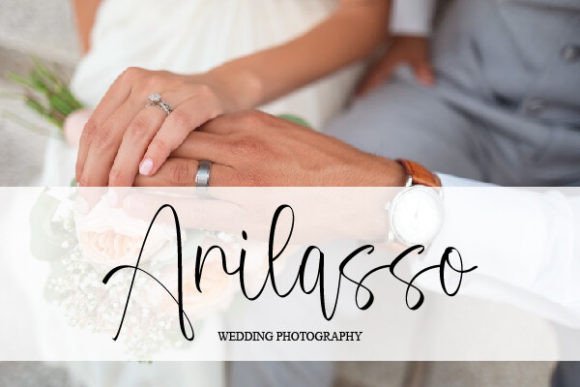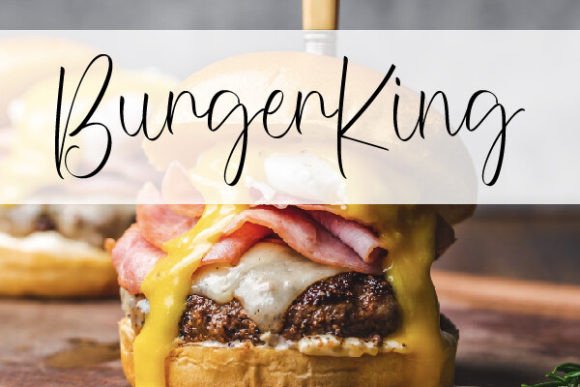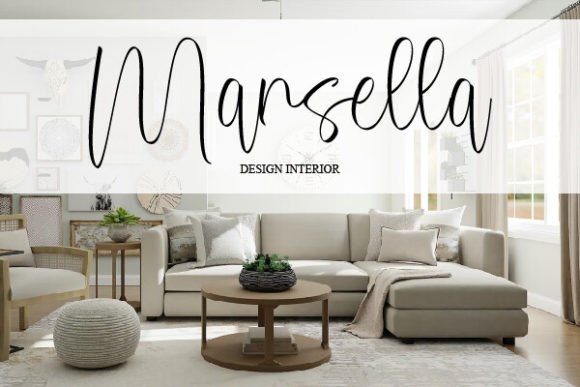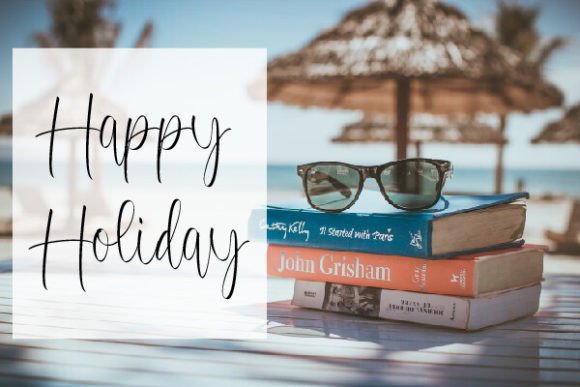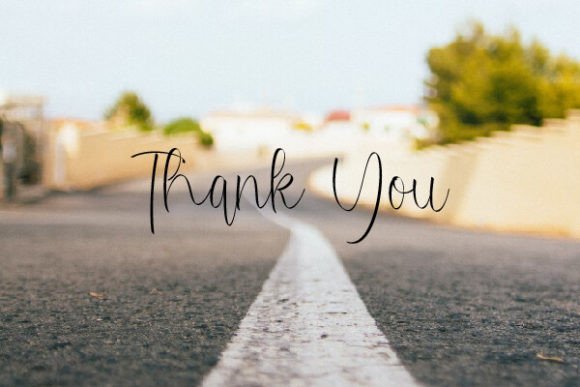
Introducing Alessandra Font: Elevate Your Designs with Timeless Elegance
Are you looking for a font that exudes sophistication and classic charm? Look no further than Alessandra, a stunning calligraphy font that adds a touch of elegance to any text. With its flowing strokes and stylish curves, Alessandra brings a refined beauty to your words, making them stand out in a world of design.
The Characteristics of Alessandra Font
Alessandra is a graceful calligraphy font that boasts a range of characteristics that make it perfect for designers and crafters. Its flowing strokes and stylish curves give it a sophisticated and timeless feel, making it ideal for projects that require a touch of elegance. Whether you’re working on invitations, cards, or other designs, Alessandra is the perfect choice.
Perfect for Invitations, Cards, and More
Alessandra is a versatile font that can be used for a wide range of projects. Its classic charm and refined beauty make it perfect for:
• Birthday cards and party invitations
• Business cards and corporate designs
• Branding and packaging
• Any project that requires a touch of elegance and sophistication
Why Choose Alessandra Font?
There are many reasons why Alessandra is the perfect choice for designers and crafters. Here are just a few:
• Timeless elegance: Alessandra’s classic charm ensures that your designs will never go out of style.
• Versatility: Alessandra can be used for a wide range of projects, from invitations to branding.
• Elegance: Alessandra’s flowing strokes and stylish curves add a touch of refined beauty to any text.
Tips for Using Alessandra Font
Here are a few tips for getting the most out of Alessandra:
• Pair with complementary fonts: Alessandra pairs well with a range of fonts, including serif and sans-serif fonts.
• Experiment with colors: Alessandra looks great in a range of colors, from metallic to pastel.
• Use for headlines and titles: Alessandra is perfect for headlines and titles, where its elegance and sophistication can really shine.
Alessandra is a stunning calligraphy font that adds a touch of timeless elegance to any text. With its flowing strokes and stylish curves, it brings a refined beauty to your words, making them stand out in a world of design. Whether you’re a designer or crafter, Alessandra is the perfect choice for projects that require a touch of sophistication and classic charm. So why wait? Download Alessandra today and elevate your designs with its enchanting calligraphy.
What is Alessandra font?
Alessandra is a calligraphy font that adds a touch of elegance and sophistication to any text.